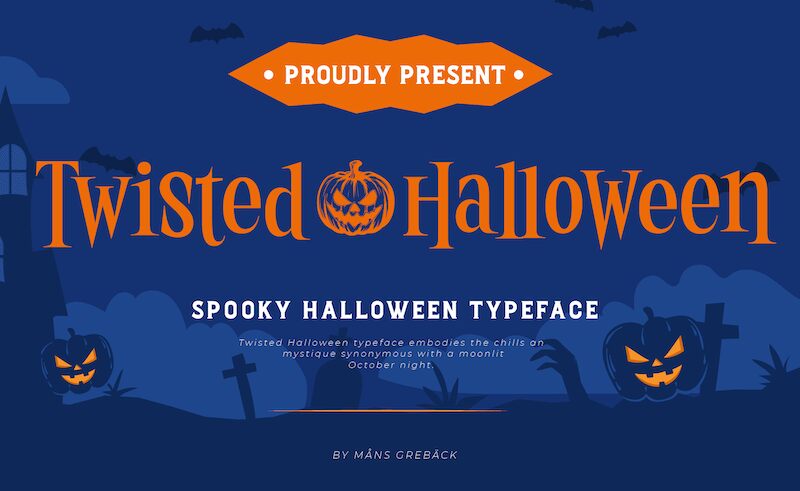
Twisted Halloween, designed by Mans Greback, is a holiday font that captures the essence of Halloween. Its spooky and mysterious style makes it perfect for projects related to this haunted holiday.
The condensed width of this serif font adds an extra touch of elegance and sophistication. With undulating characters that reject a fixed baseline, each word takes on its own personality, creating a unique and captivating visual experience. Twisted Halloween is ideal for creating eye-catching posters, invitations, or any other design that aims to evoke the chills and thrills of a moonlit October night.
Let your creativity run wild with this hauntingly beautiful typeface.
Use asterisk * to make a Halloween cat, or multiple asterisks to make different symbols like pumpkins, demons, skulls.
Example: Witch*Craft & Black******Magic